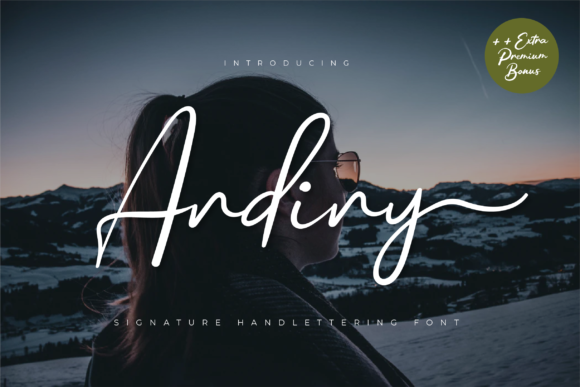
The Quest for the Perfect Font: Discovering Andiny
Ah, the eternal struggle of finding the perfect font for our design projects! I still remember the time I was working on a wedding invitation suite, and my client asked for a font that was both elegant and modern. I scoured the internet, tried out countless fonts, but nothing seemed quite right. That was until I stumbled upon Andiny, an exquisite handwritten font that stole my heart. In this article, I’ll share my love for Andiny, its features, and how to make the most of it in your designs.
An Honest Review of Andiny
What I Love About Andiny
- ✨ Classy calligraphic influences that add a touch of sophistication to any project
- ✅ Contemporary and fresh feel that makes it perfect for modern designs
- 💫 Beautifully crafted letters with a high level of detail and elegance
- 🎨 Versatile and can be used for a wide range of projects, from wedding invitations to branding and packaging
While Andiny is an amazing font, there are a few things to keep in mind:
- 🤔 Some users may find the font a bit too ornate for certain projects, such as body text or captions.
- ⚠️ As with any script font, it may not be the best choice for very small font sizes or low-resolution images.
The Story Behind Andiny
Andiny was designed by a talented type designer who wanted to create a font that would capture the essence of modern calligraphy. With its beautiful, flowing letters and elegant connections, Andiny is the perfect blend of traditional and contemporary design.
Q: What type of projects is Andiny best suited for?
A: Andiny is a versatile font that can be used for a wide range of projects, including wedding invitations, branding, packaging, and more.
Q: Does Andiny come with OpenType features?
A: Yes, Andiny comes with a range of OpenType features, including glyphs, stylistic alternates, and more.